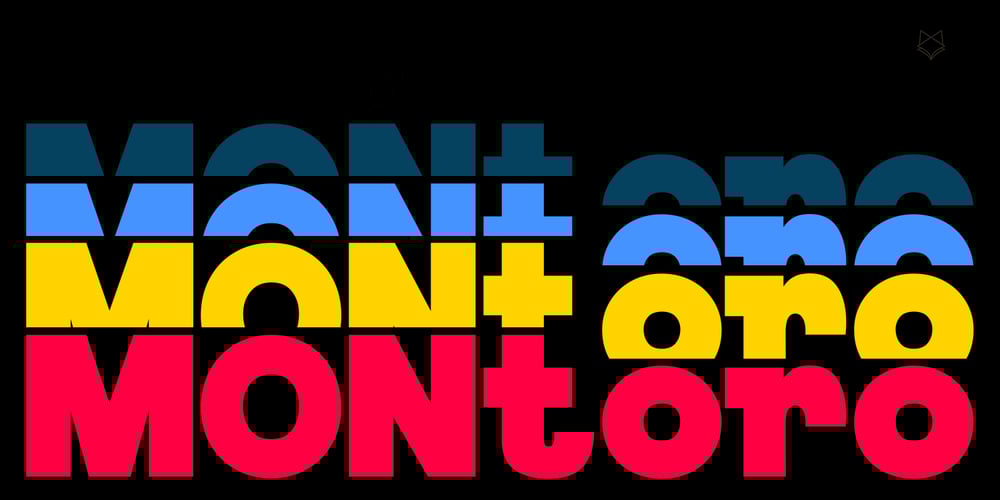
Montoro Display
Montoro Display font
Montoro Display Font Family was designed by Evin Tony and published by FoxType. Montoro Display contains 6 styles and family package options. Montoro Display is a Brand New Luxury Typeface with a powerful font family. It has a dependable and uncompromising style, with controlled letterforms and modern touches. It looks amazing in logos, magazines, and movies . Montoro Font would be perfect for branding, headlines, Captions, paragraph, and posters . The various weights allow you to experiment with a wide range of applications. It’s created to make an impression without sacrificing its beauty and readability. It’s shown a clean, minimalist, warmth, quirky, yet still purposed to be versatileThe Typeface includes Six Weights – Regular, Medium, SemiBold, Bold, ExtraBold, and Black. All offer wide language support, upper and lower cases, numerals and extended punctuation.Thank you for taking the time to look into the font.